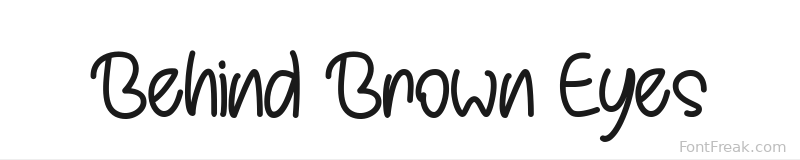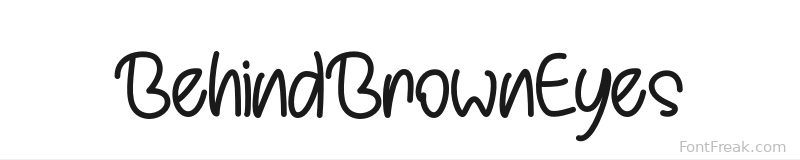
BehindBrownEyes
Behind Brown Eyes
BehindBrownEyes is a captivating handwritten font designed by Misti Hammers, available as a freeware. This font falls into the script category, characterized by its fluid and organic strokes that resemble natural handwriting. The strokes exhibit a moderate weight, providing a balanced appearance that is neither too bold nor too delicate. The contrast in line thickness adds a dynamic quality, while the spacious letterforms ensure readability, making it suitable for various design projects.
Visually, BehindBrownEyes features gentle curves and a playful, approachable demeanor, which enhances its charm. The slight inclination of the letters adds to the informal feel, making it an excellent choice for a variety of creative applications. This font is particularly well-suited for wedding invitations, where its romantic flair can convey a sense of intimacy and elegance. Additionally, it works beautifully for greeting cards, capturing the essence of personal messages with a warm touch. Restaurant menus can also benefit from the inviting nature of BehindBrownEyes, helping to create a friendly atmosphere. Moreover, it can be effectively used in branding for artisanal products, where a handcrafted feel is essential to connect with consumers.
The target audience for this font includes graphic designers, small business owners, and content creators who are looking to inject personality into their projects. It serves as an excellent tool for those who want to evoke emotions and create memorable impressions through their designs.
What sets the BehindBrownEyes font apart is its unique blend of playfulness and sophistication, making it a versatile choice for both casual and formal contexts. With its distinctive style, it's a perfect addition to any designer's toolkit. Don't miss out on the opportunity to access the BehindBrownEyes font free download and elevate your creative projects.